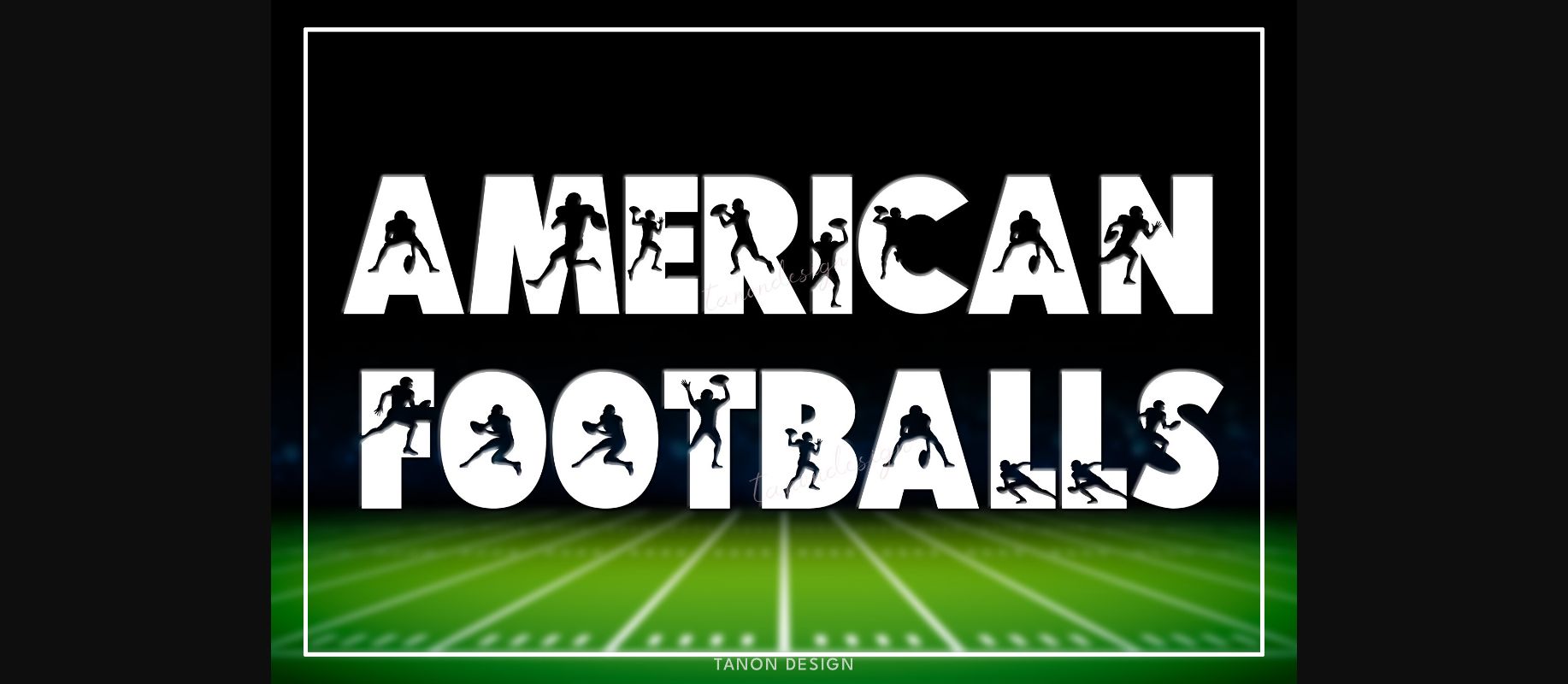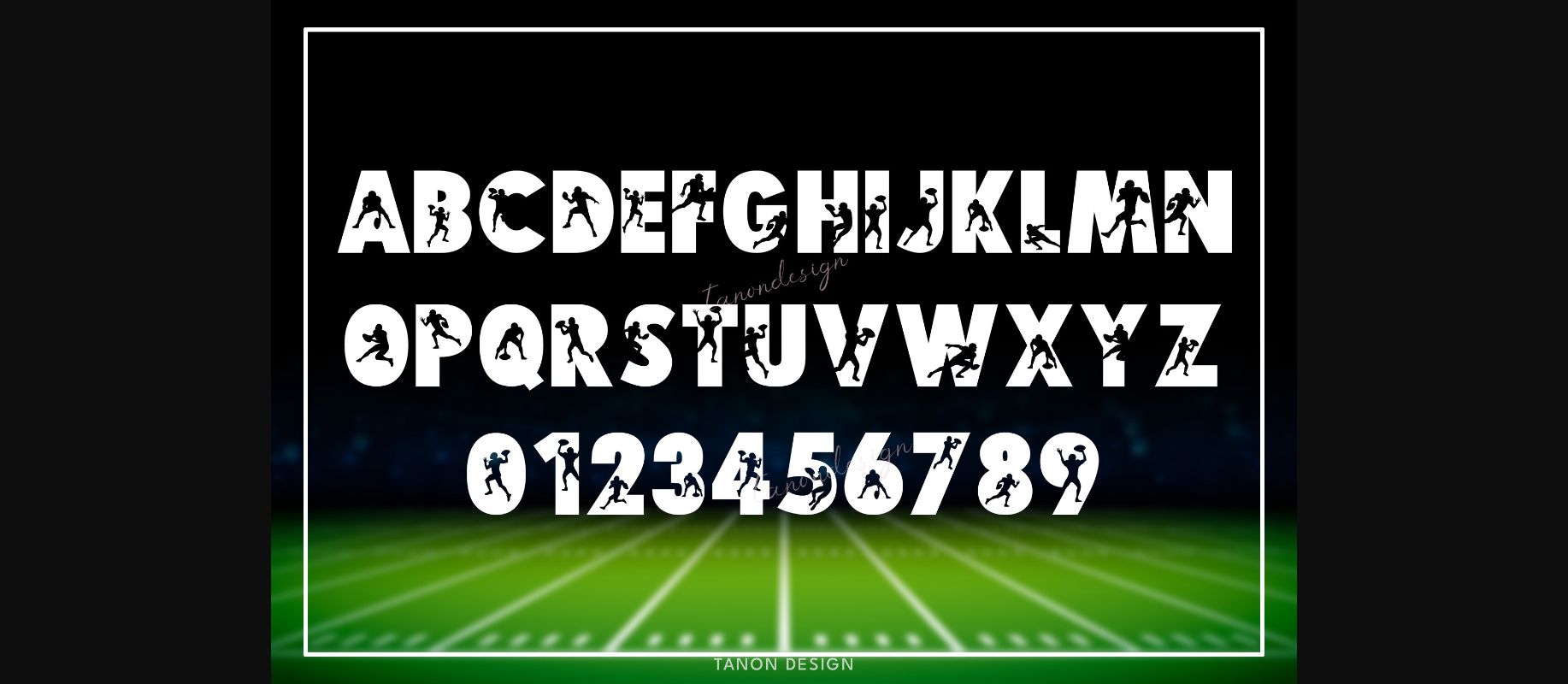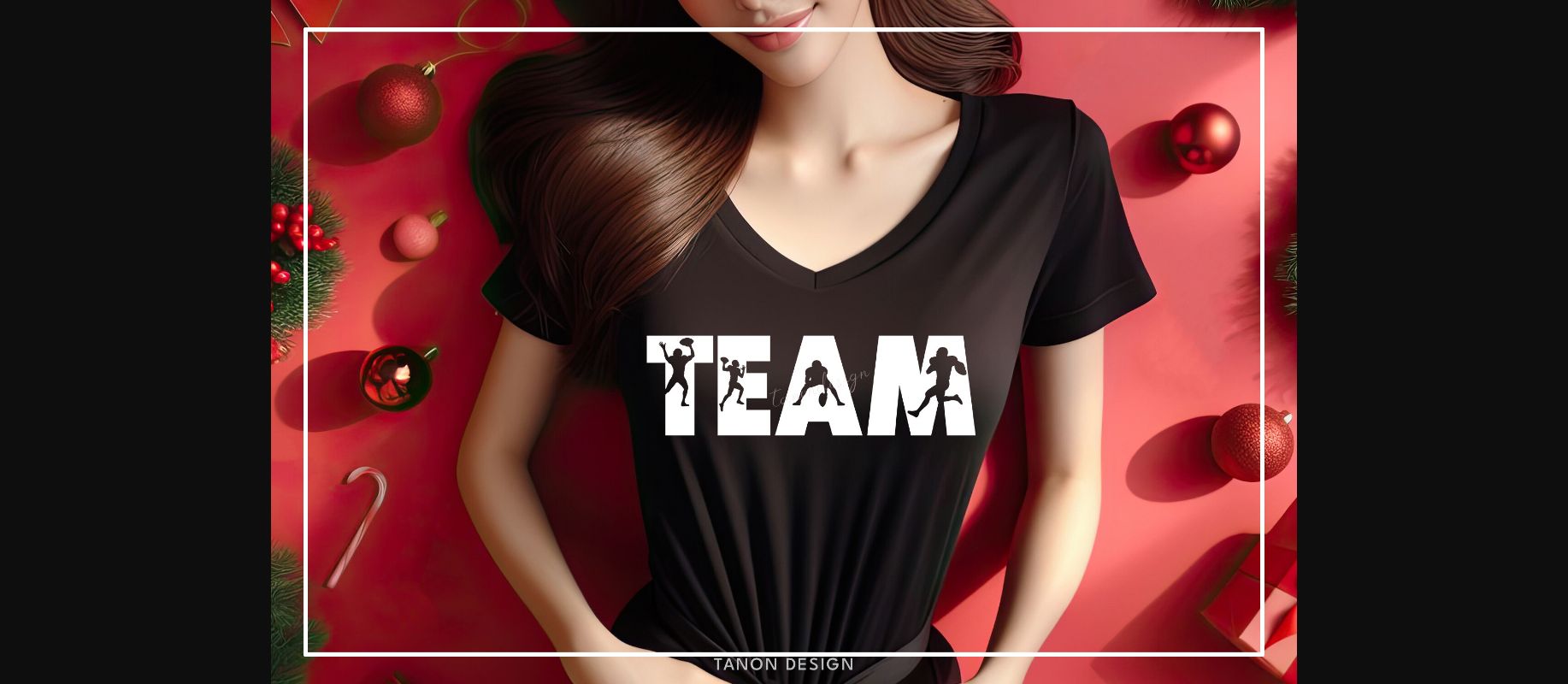
HomeDecorative FontsAmerican Footballs Font Decorative Fonts American Footballs Font FacebookTwitterPinterestWhatsApp 1 of 5 ... American Footballs Font Poster 2... American Footballs Font Poster 3... American Footballs Font Poster 4... American Footballs Font Poster 5... About American Footballs Font American Footballs is a fun and cool decorative font. It will look fantastic on all your project designs including t-shirts, mugs, digital designs, crafts, cards, and more! DOWNLOAD NOW People also explored Boldris Font Bright Cupid Font Yushina Font Pigeon Post Dabella Font Luxury Monogram Font Lemoncurd Font Zawin Linx Font Absolute Joyful Font 398 0 TagsAmerican Footballs Font Previous articleRose FontNext articleOrioonic Font LEAVE A REPLY Cancel reply Comment: Please enter your comment! Name:* Please enter your name here Email:* You have entered an incorrect email address! Please enter your email address here Website: Save my name, email, and website in this browser for the next time I comment. Personal Use Free Anti Personal Use Free Read more about this font Spaghetti Personal Use Free Read more about this font Snaily Personal Use Free Read more about this font Lion Teen Personal Use Free Read more about this font BLOG Using Fonts in Digital Marketing: Tips to Strengthen Your Brand Identity In the realm of digital marketing, every visual element plays a crucial role in shaping a brand's identity, and fonts are no exception. The... Exploring Font Trends Free vs Paid Fonts: Why Investing in Premium Fonts Is Worth It Best Fonts for T-Shirt Design – Top 2025 Picks